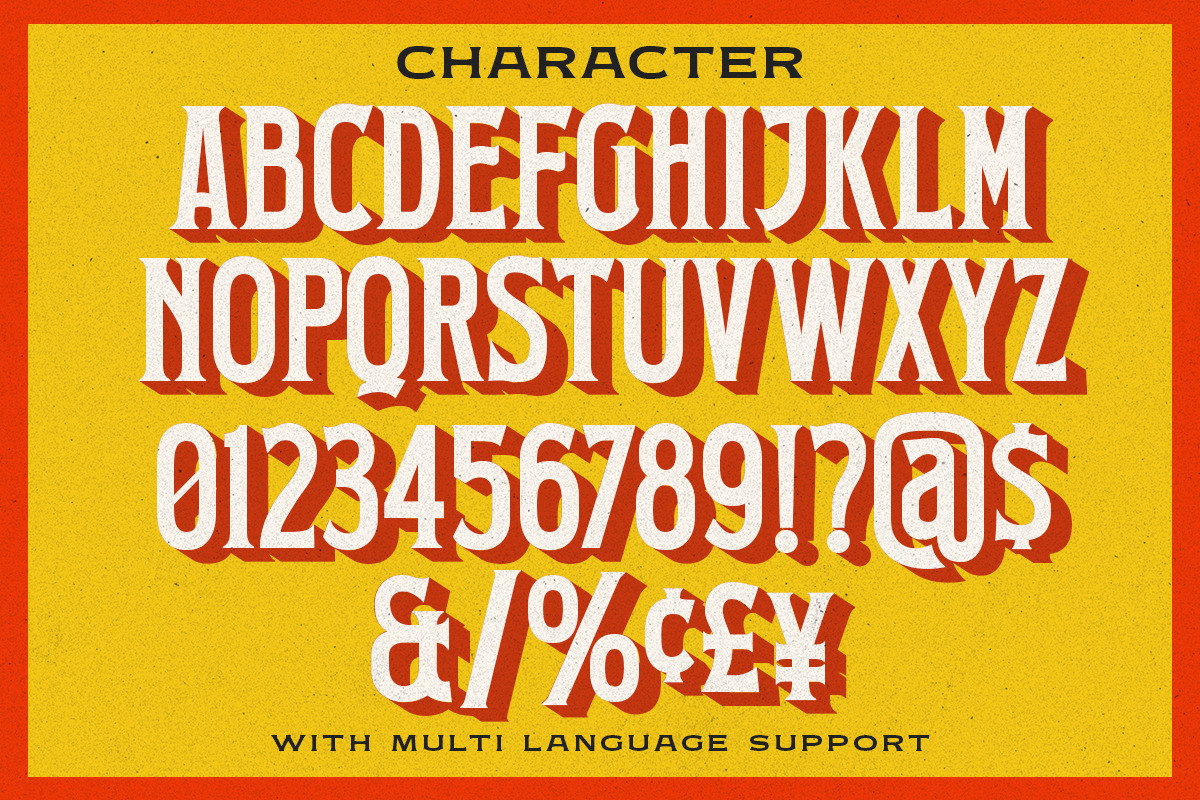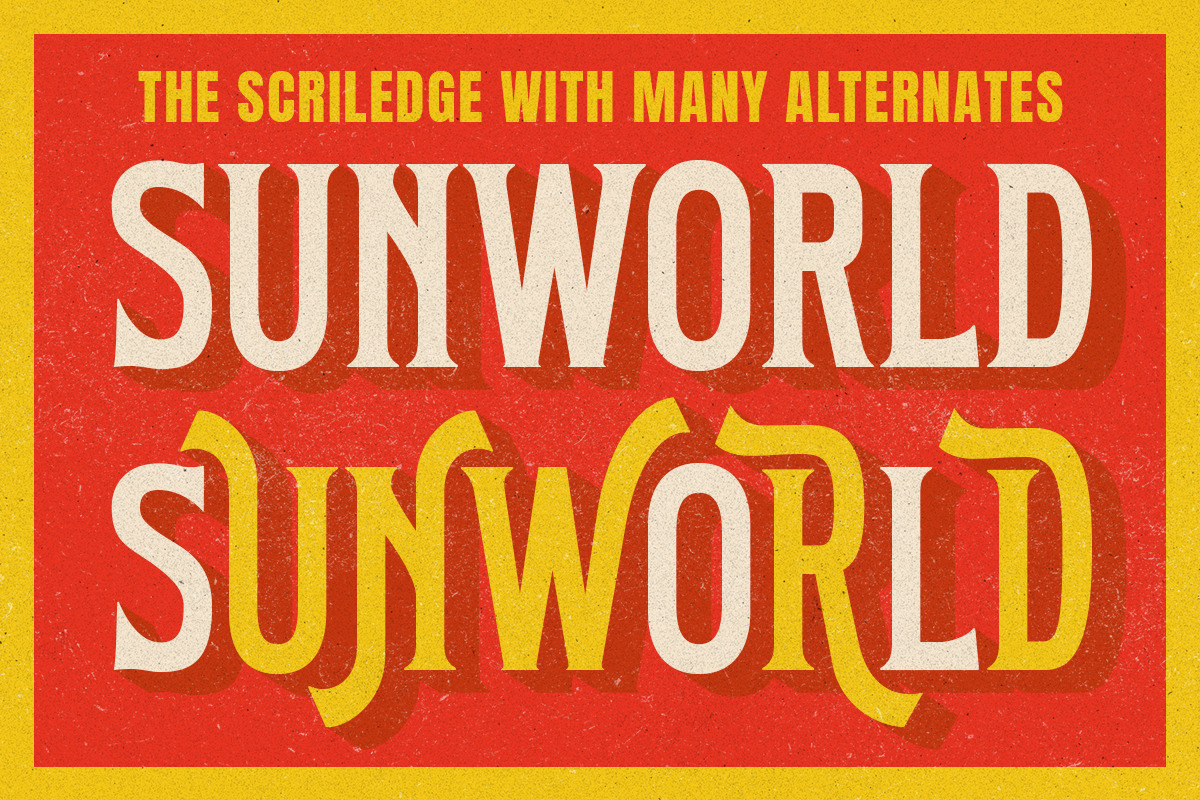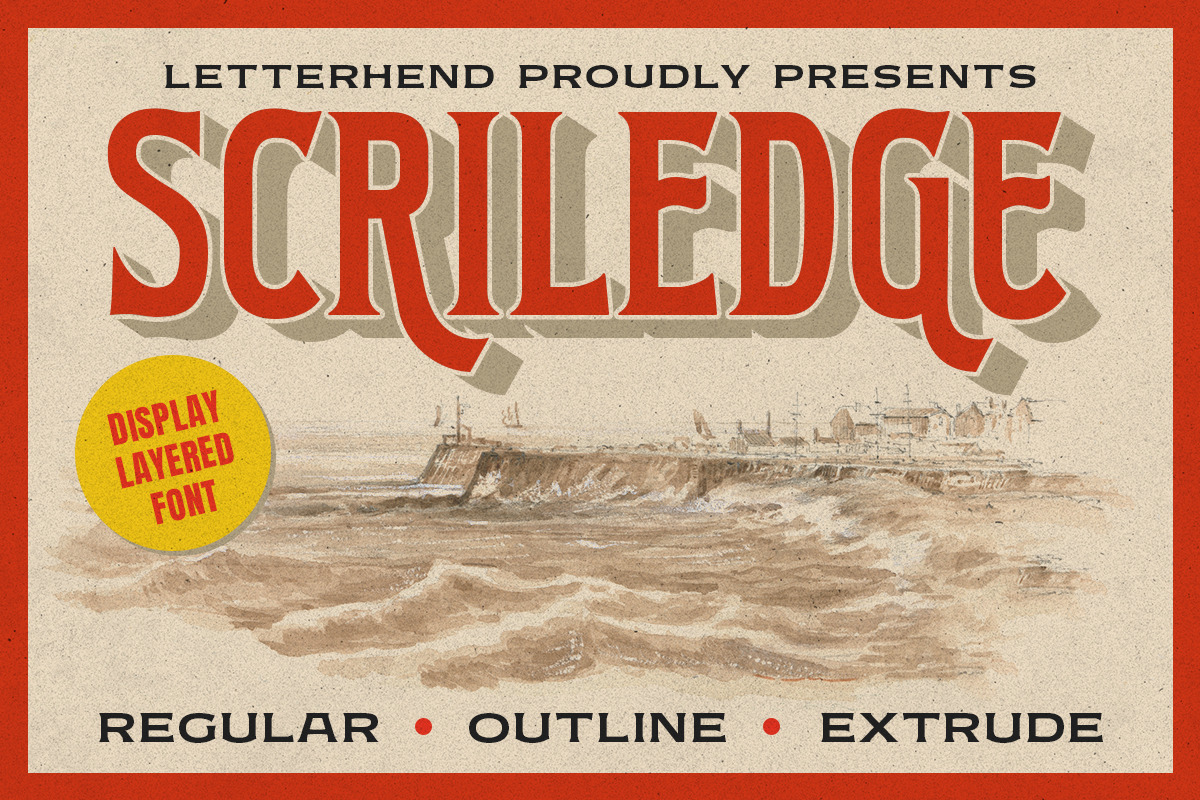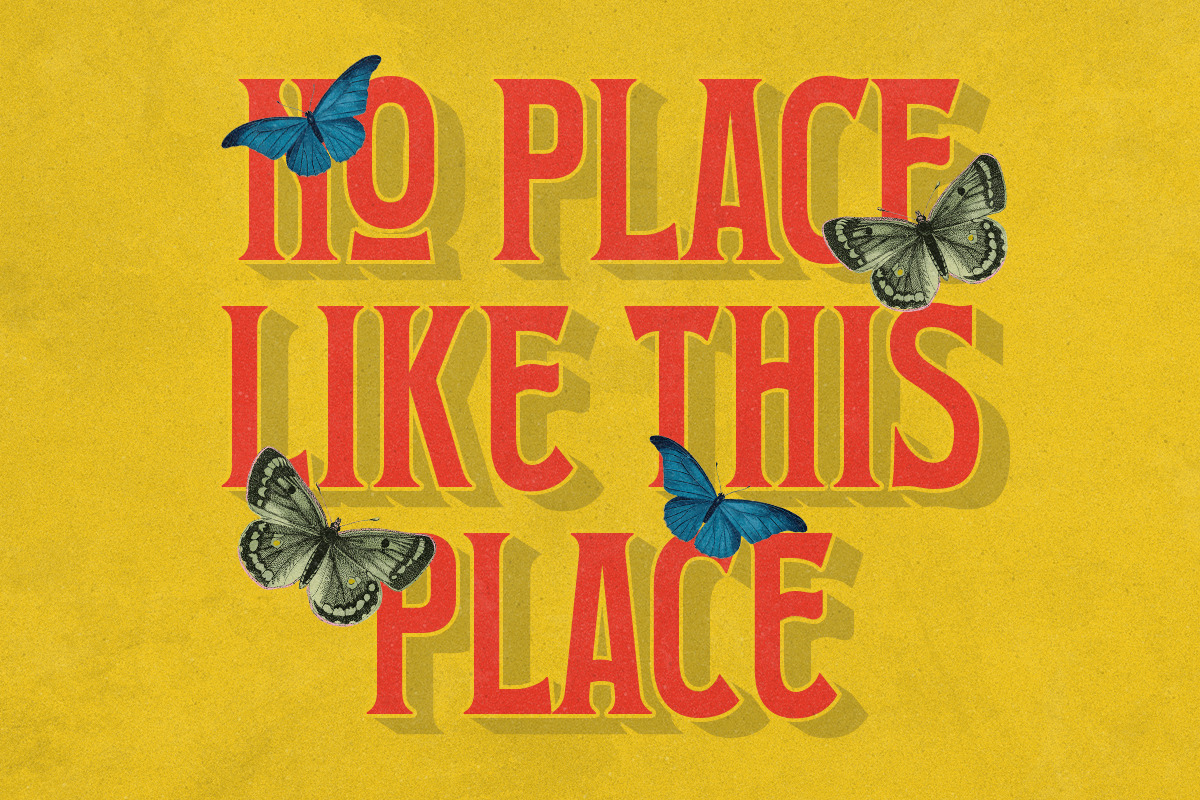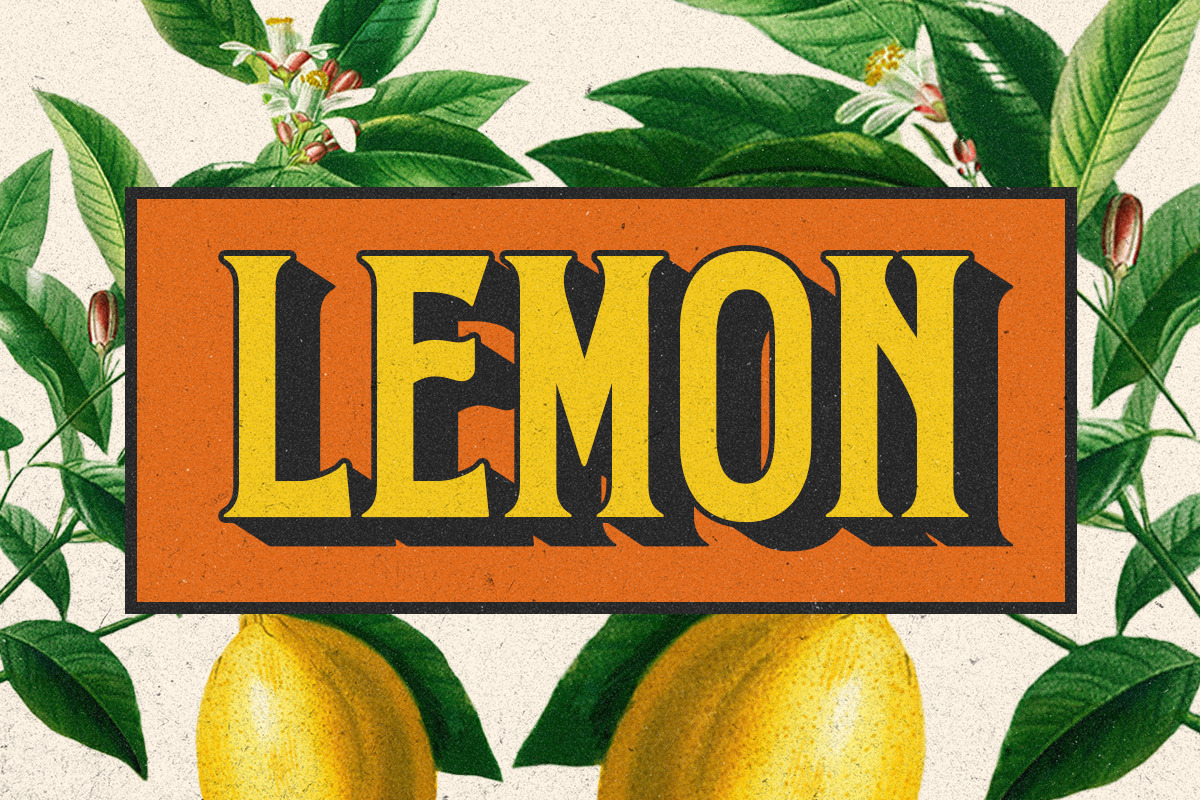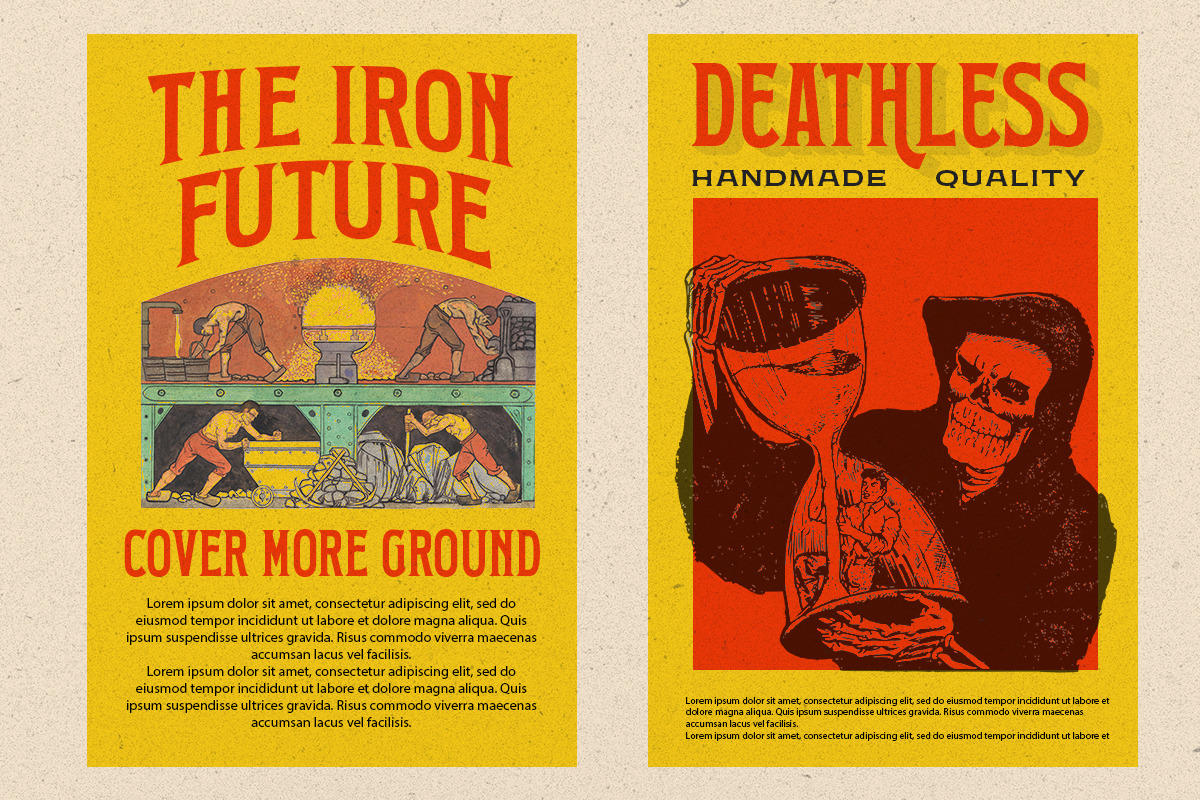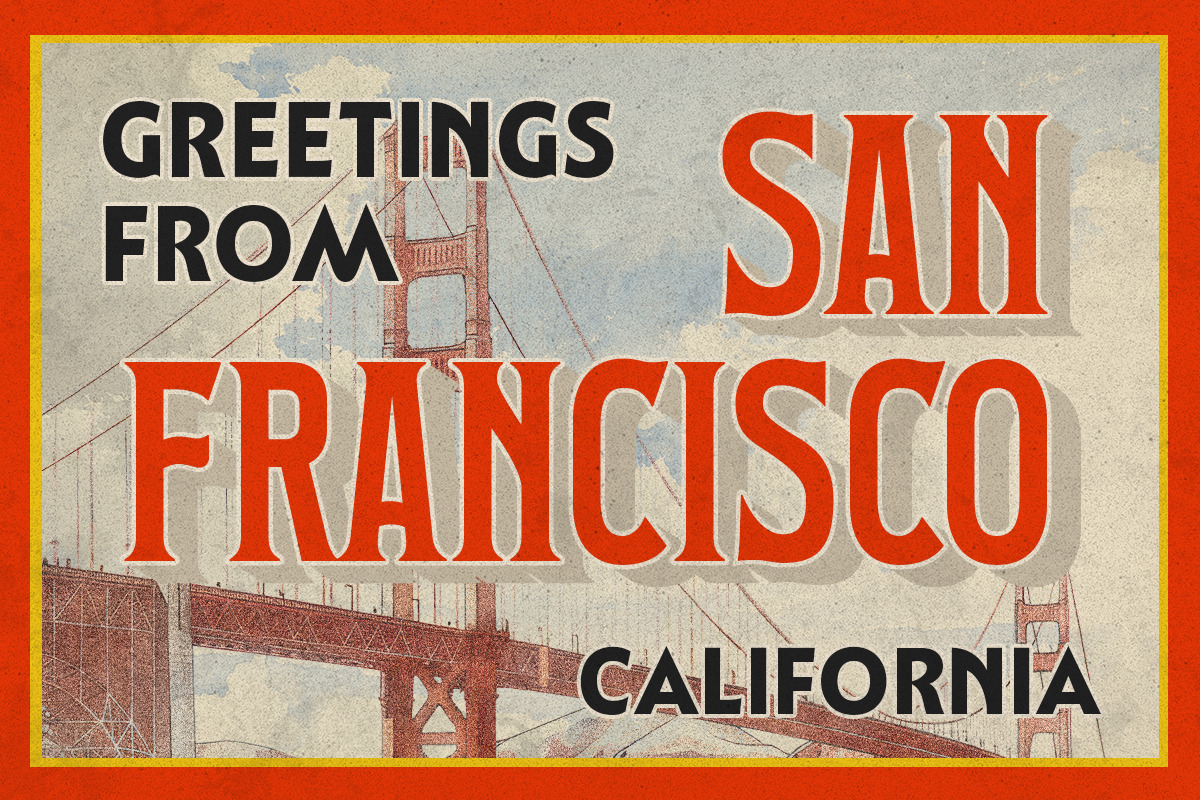
The Scriledge Layered Display Font
The Scriledge is a display font with 3 layered style. You can create vintage 3D look without using any add-on, only with fonts! This font is suitable for a vintage poster, 3d type, or retro Including number and punctuation, also support multi language. This font also contain a bunch of alternates!